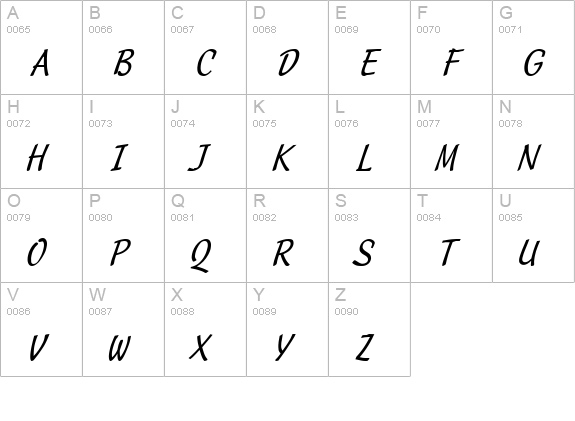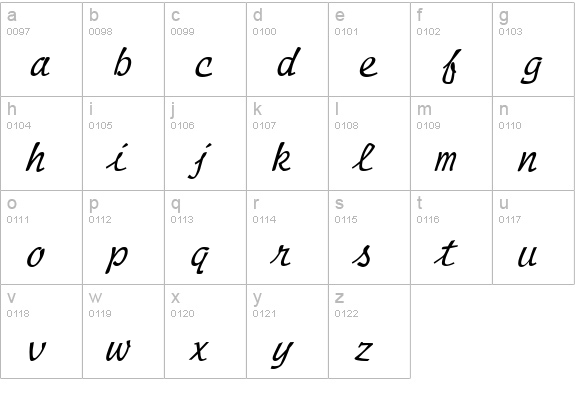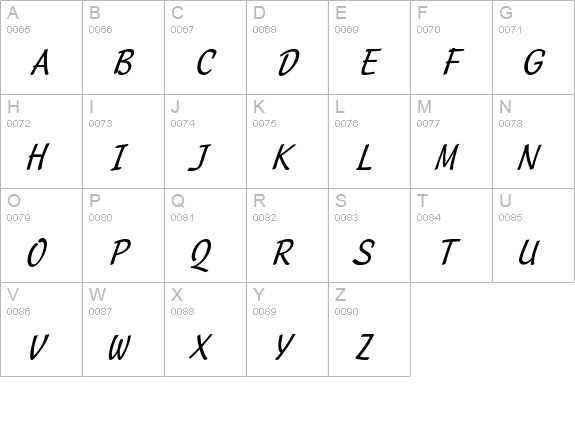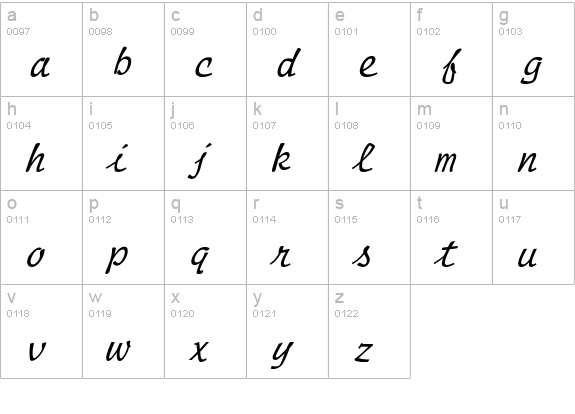
Manuscript Italic is a distinctive, italic variant in the Manuscript typeface family \xE2\x80\x94 well suited to design and typography projects.
Introducing Manuscript Italic font, an exquisite typeface that effortlessly captures the elegance and sophistication of the written word. Its delicate curves and graceful strokes add a touch of refinement to any project, making it perfect for invitations, stationery, and other creative endeavors. Designed with meticulous attention to detail, Manuscript Italic font showcases a harmonious balance between traditional calligraphy and modern design. Its flowing letterforms evoke a sense of timeless beauty, while the subtle variations in stroke thickness create a sense of depth and dimension. What sets Manuscript Italic font apart is not just its stunning aesthetics, but also its versatility. Whether you're designing a wedding invitation, a logo, or a book cover, this font adapts effortlessly to any context, always adding a touch of elegance and sophistication. And the best part? Manuscript Italic font is available for free! That's right, you can download this extraordinary typeface at FontsMarket.com without spending a dime. We believe that creativity should be accessible to all, and we are thrilled to offer this incredible font as a gift to the design community. So why wait? Unleash your creativity and elevate your designs with Manuscript Italic font. Download it for free today at FontsMarket.com and let your imagination soar.